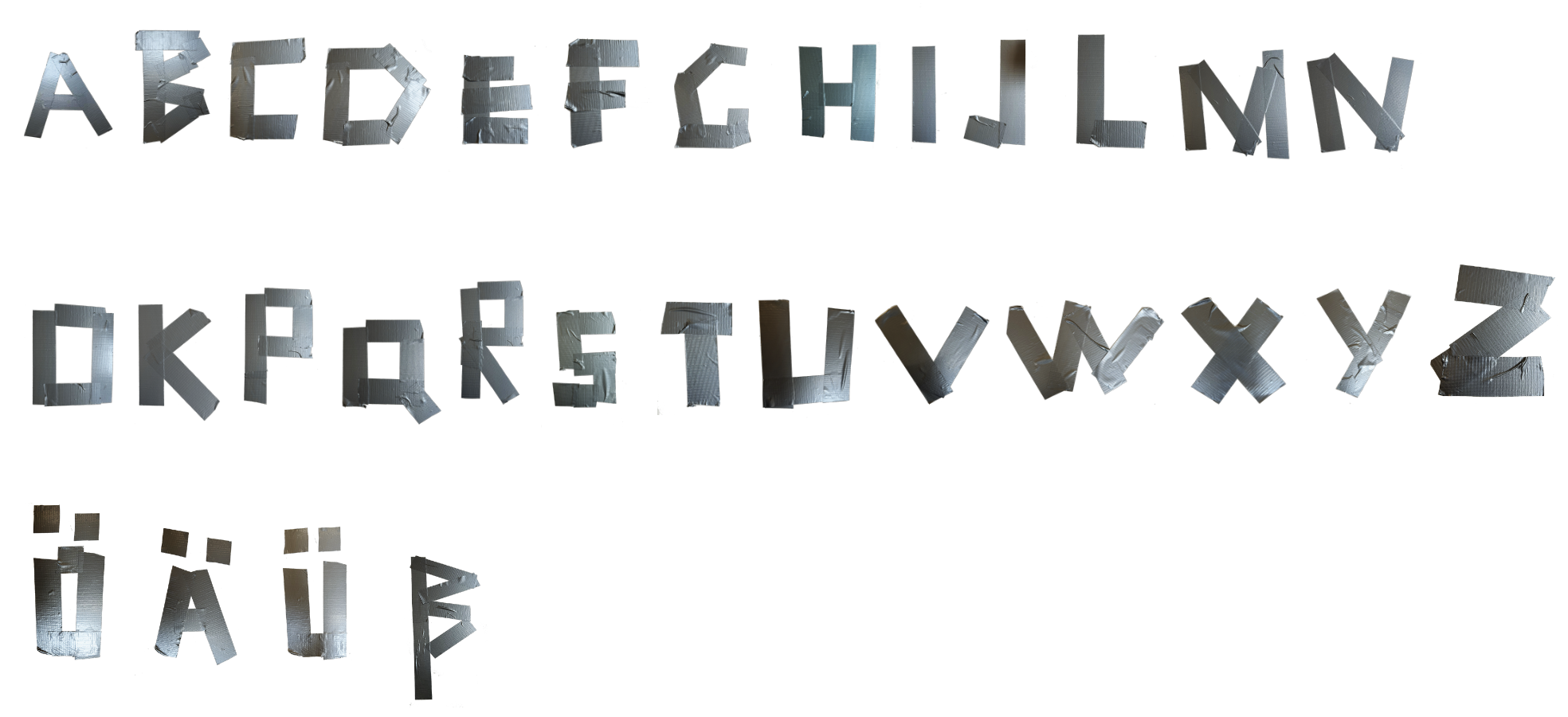
7. TAPE
TAPE is a bold, tough-looking typeface made entirely from strips of duct tape, the universal material that fixes everything. The letters look sturdy enough to hold a project together on their own, even though a few numbers mysteriously didn’t survive the ripping-and-sticking process. It’s rough around the edges, a bit uneven, and absolutely reliable. Perfect for when your text needs to look like it could repair a spaceship and label a lunchbox at the same time.